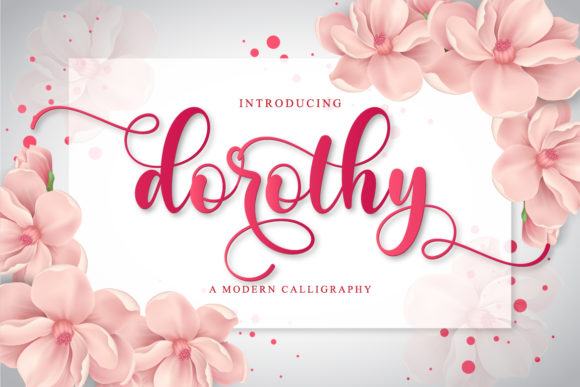
Dorothy: A Friendly Script Typeface for Warm Branding
I was sitting on my studio floor, surrounded by blank packaging mockups and color palettes for a friend’s small-batch candle line. The creative brief was simple: the brand needed to feel cozy, approachable, and undeniably handmade. She didn’t want anything corporate or overly polished. I started pulling up handwritten fonts, but most felt either too messy or too stiff. Then I opened Dorothy. The first few characters appeared on the screen, and I immediately felt a shift. The letterforms were soft, rounded, and genuinely friendly without trying too hard. It was exactly the kind of casual charm I was looking for.
A Cute Casual Handwritten Font with Genuine Character
Dorothy belongs to that sweet spot in the Script Amp and Fonts category where a typeface feels both professional and personal. It has an incredibly friendly warmness to it, like a note written by a close friend or a sign hand-painted for a weekend market. The letterforms are thick enough to hold their own, but the curves are what really give it personality. It’s a font that doesn’t rely on gimmicks. Instead, it uses gorgeous swashes and ligatures that are thoughtfully placed, usually on descenders like 'g', 'y', and 'j', or as decorative flourishes on ascenders. This makes Dorothy incredibly versatile for branding. You can keep it clean and readable for a primary wordmark, or activate the swashes to give the identity an ornate, artisanal feel. It feels like a genuine maker’s signature.
Brand Identity Testing on a Real Client Project
For the candle line identity, I started with a simple logo draft. I typed the brand name in Dorothy’s lowercase default characters, and the natural flow between letters looked smooth and intentional. The friendly 'o' and 'r' combos connected effortlessly. I placed a small line icon of a flame above the name, and the contrast between the structured icon and Dorothy’s organic rhythm created instant visual balance. This is where the font shines in logo design. It doesn’t fight for attention with the icon; it complements it. I also tested the alternates on the 't' and 'h' to create a gentle underline effect, which elevated the wordmark from a basic font choice to something that felt custom-crafted. For the brand board, we pulled warm terracotta and cream tones, and Dorothy’s thick, friendly strokes felt right at home against these earthy textures. It immediately signaled that this brand was about warmth, craft, and genuine connection.
Packaging Mocks and Web Performance
Next, I placed Dorothy onto a product label mockup. For the candle scent name, like "Warm Vanilla" or "Honey Oat," the font was perfectly readable at a medium size. That’s one of its best uses: short, impactful phrases on packaging design. The swashes also performed well as decorative dividers on the back of hang tags. It’s important to note that for any sort of ingredients list or safety information, I switched to a highly legible sans-serif. Dorothy is not a body text font. On the website mockup, I used Dorothy strictly for the hero headline and navigation accents. It immediately softened the layout and added that handmade warmth the client wanted. On social media, specifically Instagram layouts, I used Dorothy for quote posts and product highlight stories. The font maintains its cute personality even at smaller sizes on mobile screens, though adding a little tracking for story text helps with readability. It delivers a cohesive, crafted feel across the entire brand identity.
Display Font Strengths and Practical Limitations
Let’s be direct about where Dorothy works best. It is a display font through and through, meaning it is ideal for headlines, logo design, product names, short phrases, and decorative accent text. It is fantastic for creative studios, bakeries, cafes, handmade shops, lifestyle bloggers, and product packaging. The font’s strength is its warm and casual personality, which means it would feel completely out of place in corporate reports, law firm identities, or any project requiring a strictly formal tone. Readability drops significantly at very small sizes, especially when the swashes are activated. Recognizing this limitation is part of using the font professionally. When you use it in its proper context, it is a highly effective tool for creating brand recognition and emotional connection. It signals to the audience that this brand is approachable, handcrafted, and authentic.
Dorothy pairs beautifully with simple, neutral fonts that won’t compete for attention. For a classic, editorial feel, try pairing it with a clean serif like EB Garamond or Lora. The contrast between the structured serif and Dorothy’s organic script creates a sophisticated, modern typography system. For a more minimal and contemporary look, a basic sans-serif like Open Sans or Lato allows Dorothy to remain the star of the show. When testing Dorothy before finalizing a project, cycle through all the available ligatures and alternates. The default connections between letters might not always be the best for your specific word. Sometimes, a capital swash or an alternate 's' can dramatically improve the flow of a logo mark. Finally, always check the commercial font license before using Dorothy in client work, brand identity, packaging, merchandise, or digital products. Ensuring you have the proper rights protects your work and your client’s investment. For my friend’s candle line, Dorothy was the anchor of the entire visual identity. It delivered the handmade, friendly feeling we needed, proving that a well-chosen script can truly define a brand.